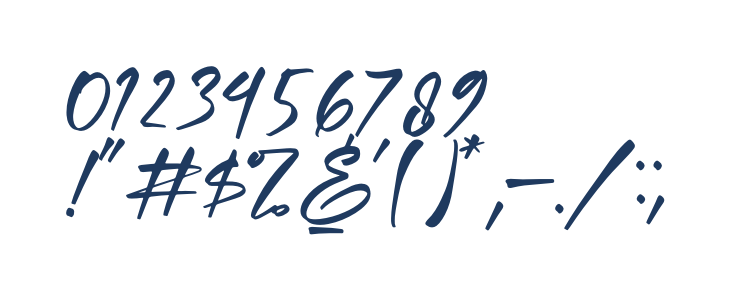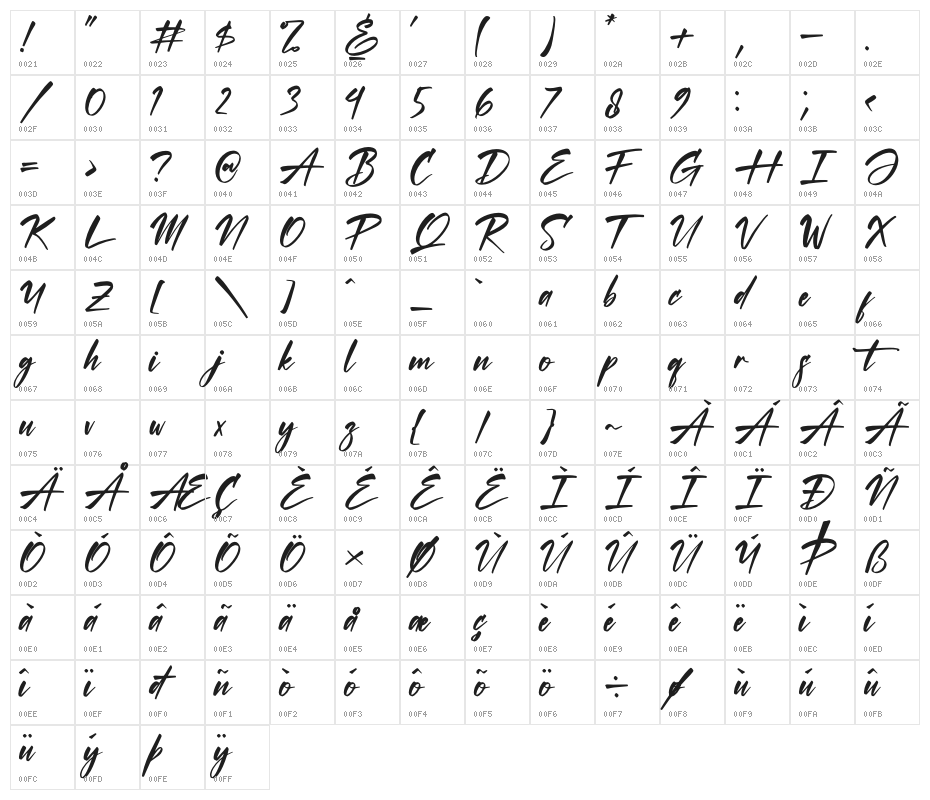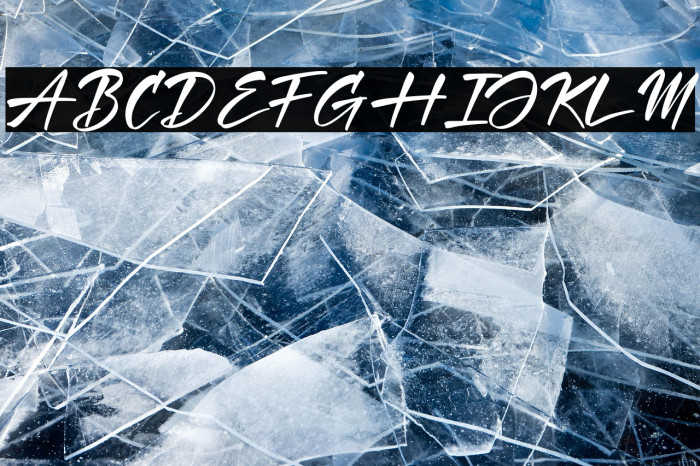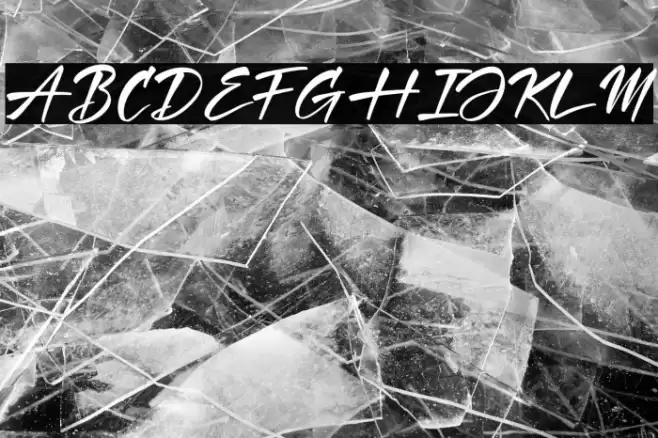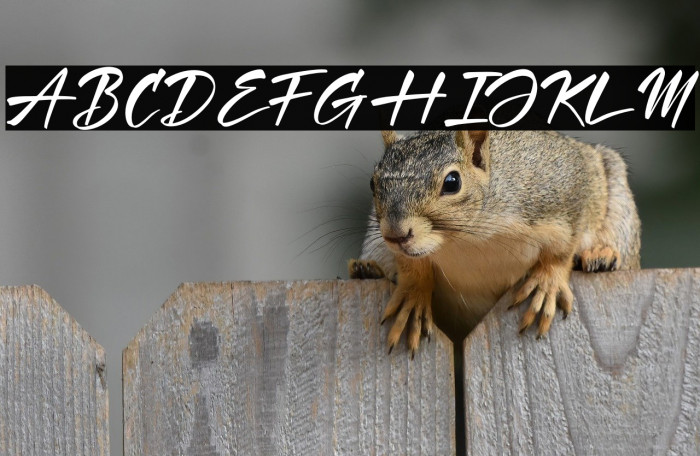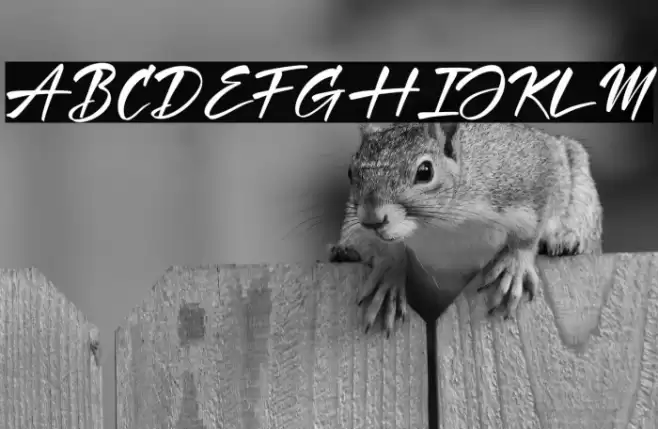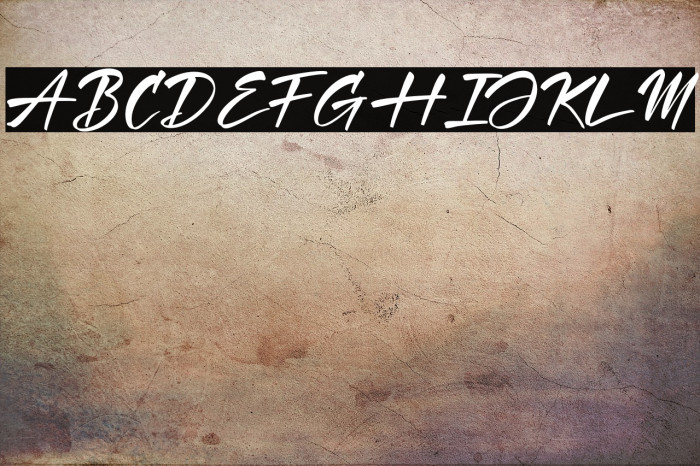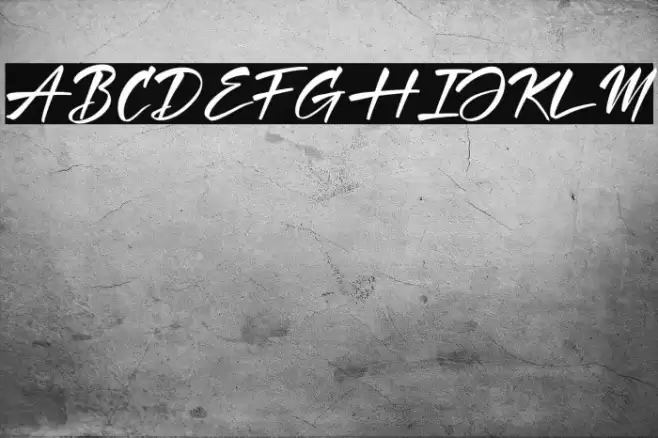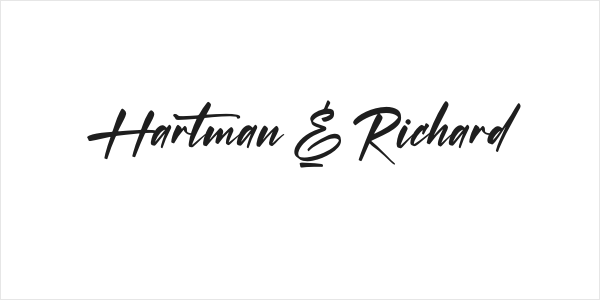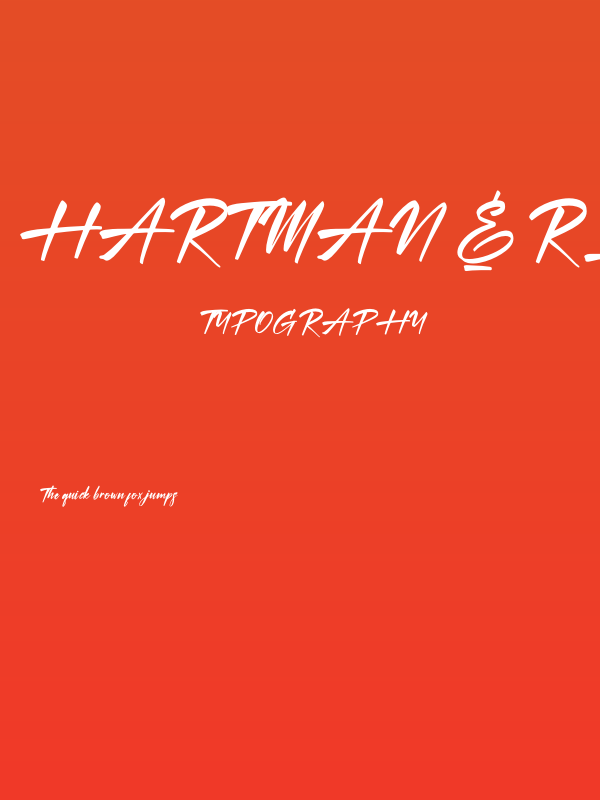
Hartman & Richard Font
Hartman & Richard Description
This font features a dynamic and expressive handwritten style, characterized by its fluid and cursive letterforms. The uppercase letters are bold and slightly slanted, giving a sense of movement and energy. The lowercase letters maintain a consistent flow, with some characters extending below the baseline, adding to the font's lively appearance. The numerals are equally expressive, with a playful yet legible design. Special characters are included, maintaining the same energetic style. This font is perfect for projects that require a personal touch or a creative flair.